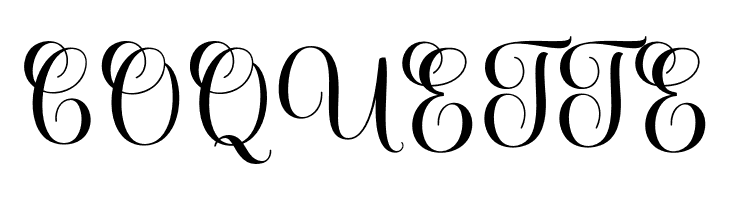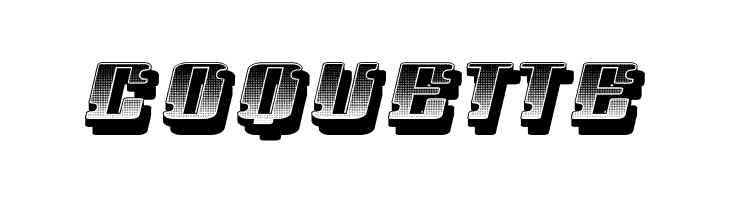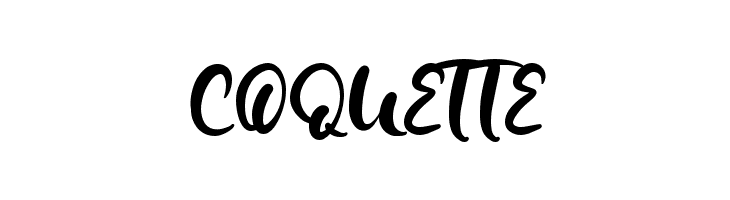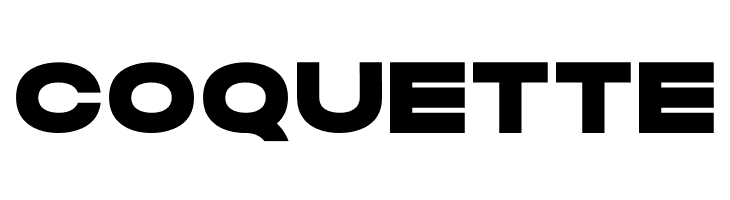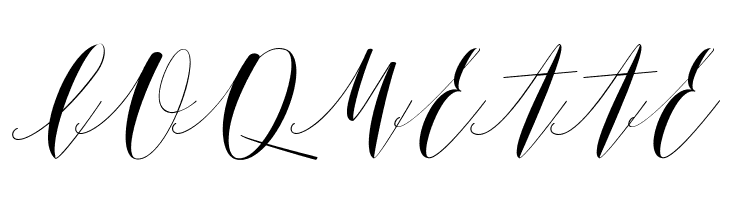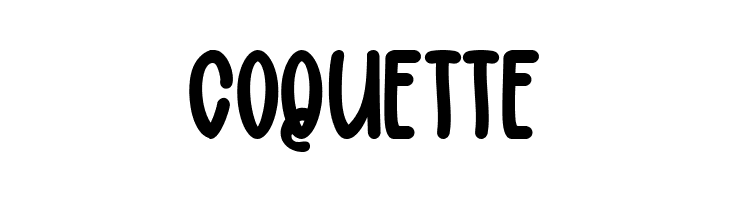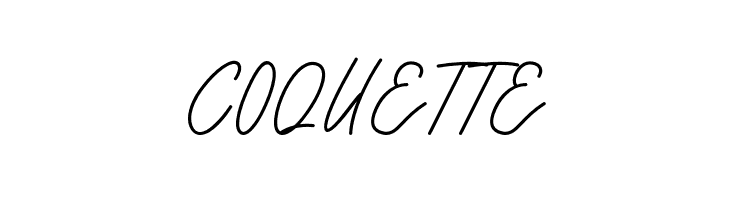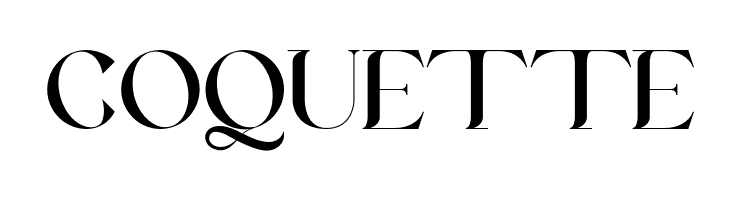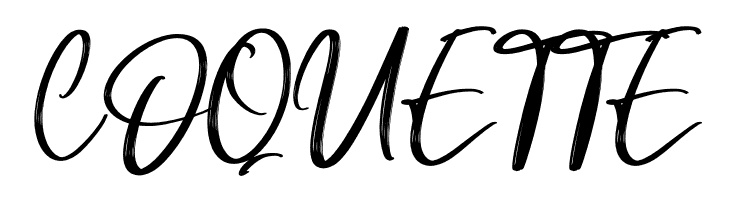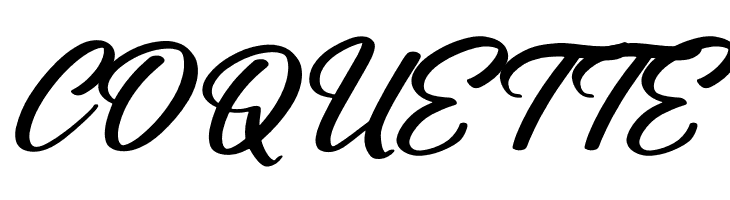
A fluid, elegant handwritten font with a natural cursive flow.
A graceful and flowing script font with elegant cursive strokes.
A lively and expressive handwritten font with fluid strokes.
A flowing, cursive italic font with elegant, connected letters.
An elegant, flowing cursive font with a sophisticated style.
A dynamic, expressive script font with a modern, handwritten style.
A dynamic, flowing script font with elegant, connected letterforms.
A flowing, cursive font with elegant loops and swashes, perfect for artistic projects.
A bold, geometric font with a modern, industrial aesthetic.
A bold, futuristic font with angular lines and a striped pattern.
A playful, whimsical handwritten font with tall, narrow letters and a casual style.
A flowing, cursive font with elegant loops and smooth connections, perfect for artistic projects.
A flowing, cursive font with elegant loops and smooth transitions.
An elegant, flowing script font with ornate uppercase and smooth lowercase letters.
An elegant script font with intricate loops and swirls, perfect for sophisticated designs.
A flowing, cursive font with elegant and sophisticated styling.
A charming script font with elegant swirls and a playful flair.
A lively and expressive handwritten font with fluid strokes and a playful elegance.
A lively handwritten font with fluid strokes and dynamic character.
A playful, bold script font with a handwritten style.
A sophisticated, high-contrast serif font with a modern and elegant style.
A graceful and fluid script font with elegant, flowing lines.
A lively and expressive script font with fluid, dynamic strokes.
A bold, cursive script font with elegant, flowing strokes.
An elegant, cursive script font with fluid connections and dynamic contrast.
A bold, hand-drawn font with a playful, marker-like style.
A bold, 3D geometric font with a striking shadow effect.
A playful and elegant script font with flowing, cursive letters.
An elegant and flowing script font with intricate loops and swashes.
A flowing, cursive script font with an elegant italic style.
A bold, flowing script font with a modern, elegant style.
A bold, distressed font with a vintage, rugged appearance.
A flowing, cursive font with elegant, interconnected letters and decorative flourishes.
A charming, handwritten cursive font with smooth, flowing curves.
A graceful and flowing script font with elegant, connected letters.